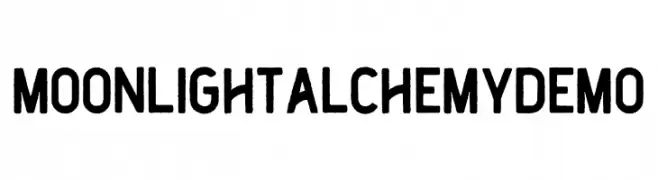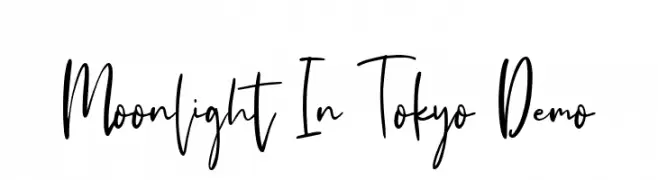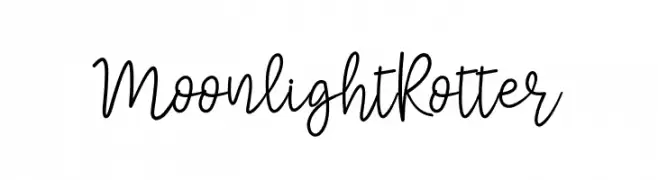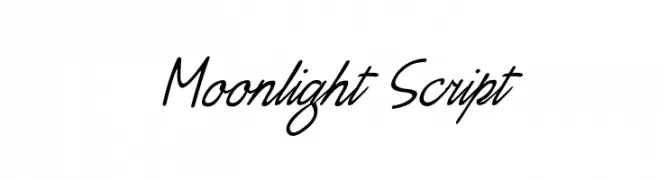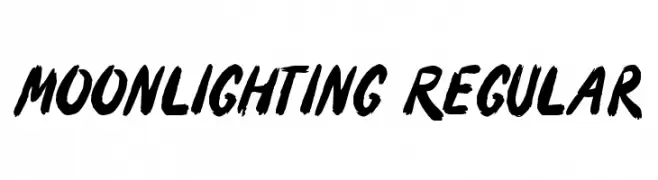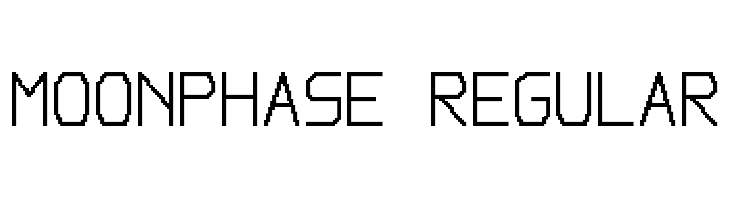
A whimsical, celestial-themed decorative font with moon and star elements.
A whimsical, handwritten font with dynamic strokes and artistic flair.
A bold, rustic font with a handcrafted, distressed texture.
A playful, bold handwritten font with a casual and friendly style.
A playful, handwritten font with a dynamic and artistic flair.
A playful, handwritten-style font with bold, irregular characters.
A playful, elegant handwritten font with smooth, flowing lines.
A graceful script font with fluid, connected strokes and a natural handwriting style.
A lively and expressive handwritten font with dynamic strokes.
A bold, brush-style font with dynamic, hand-painted strokes.